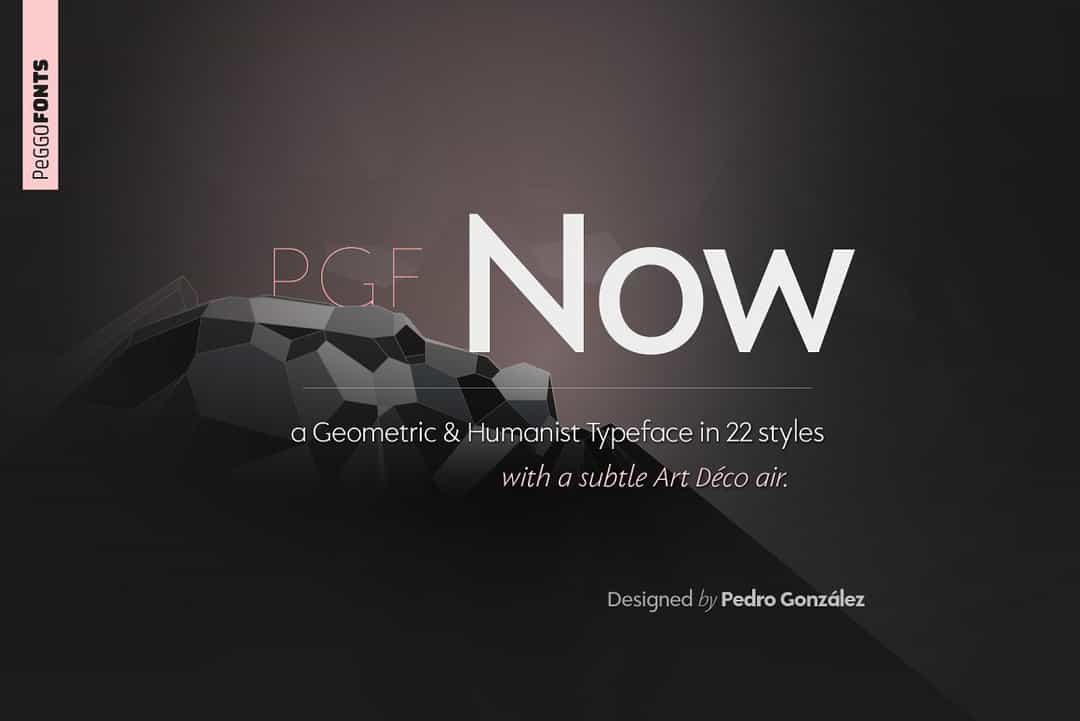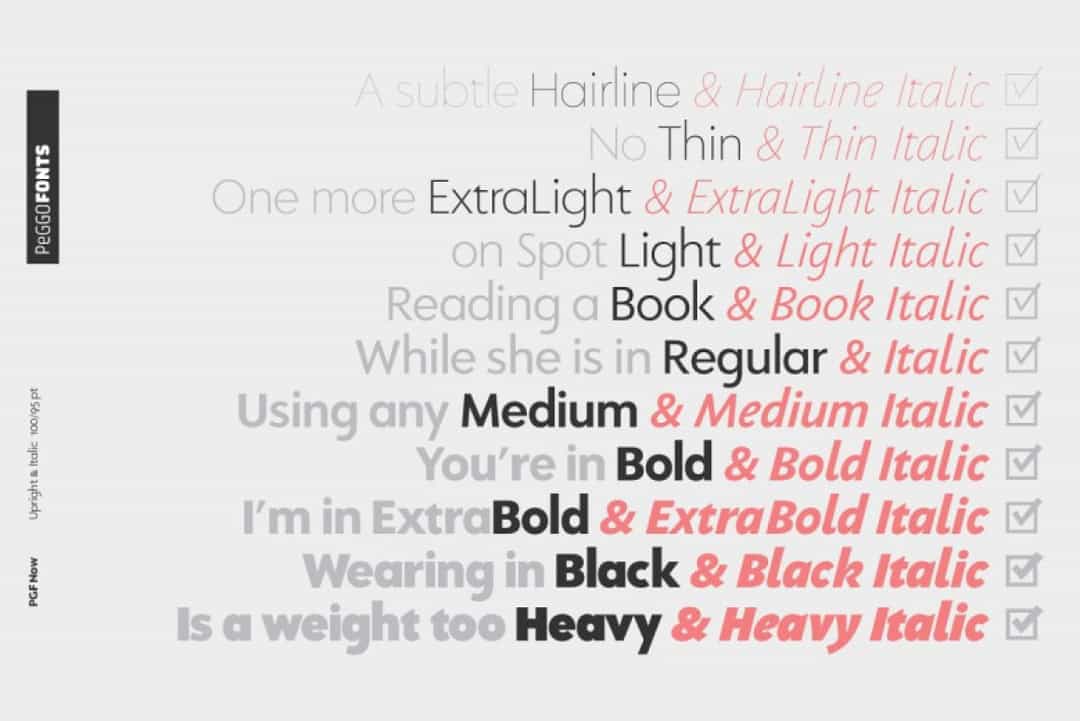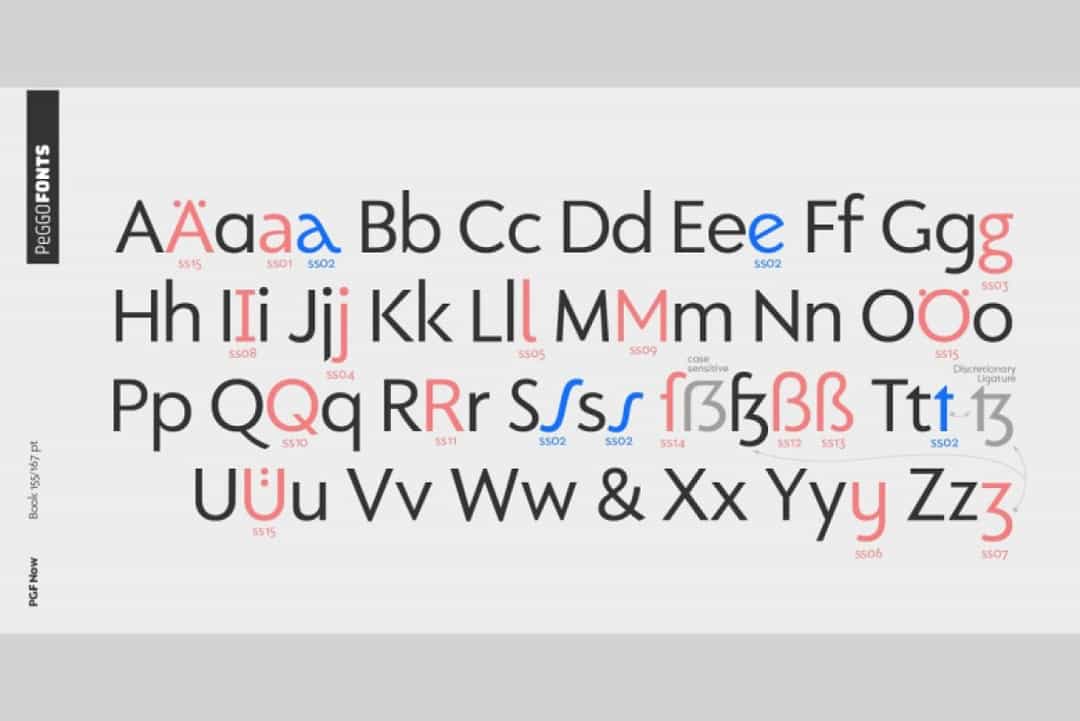
Geometric Sans with Humanistic Dimensions Typeface (Roman a.k.a. “Capitalis Monumentalis”) is an ode to classic minimalism with an Art Deco flair, boasting long ascenders/descenders as well as an “x” height which provide its trademark sharp and bright appearance; produced using both analytical and hand-crafted processes which were popular at one point in history.